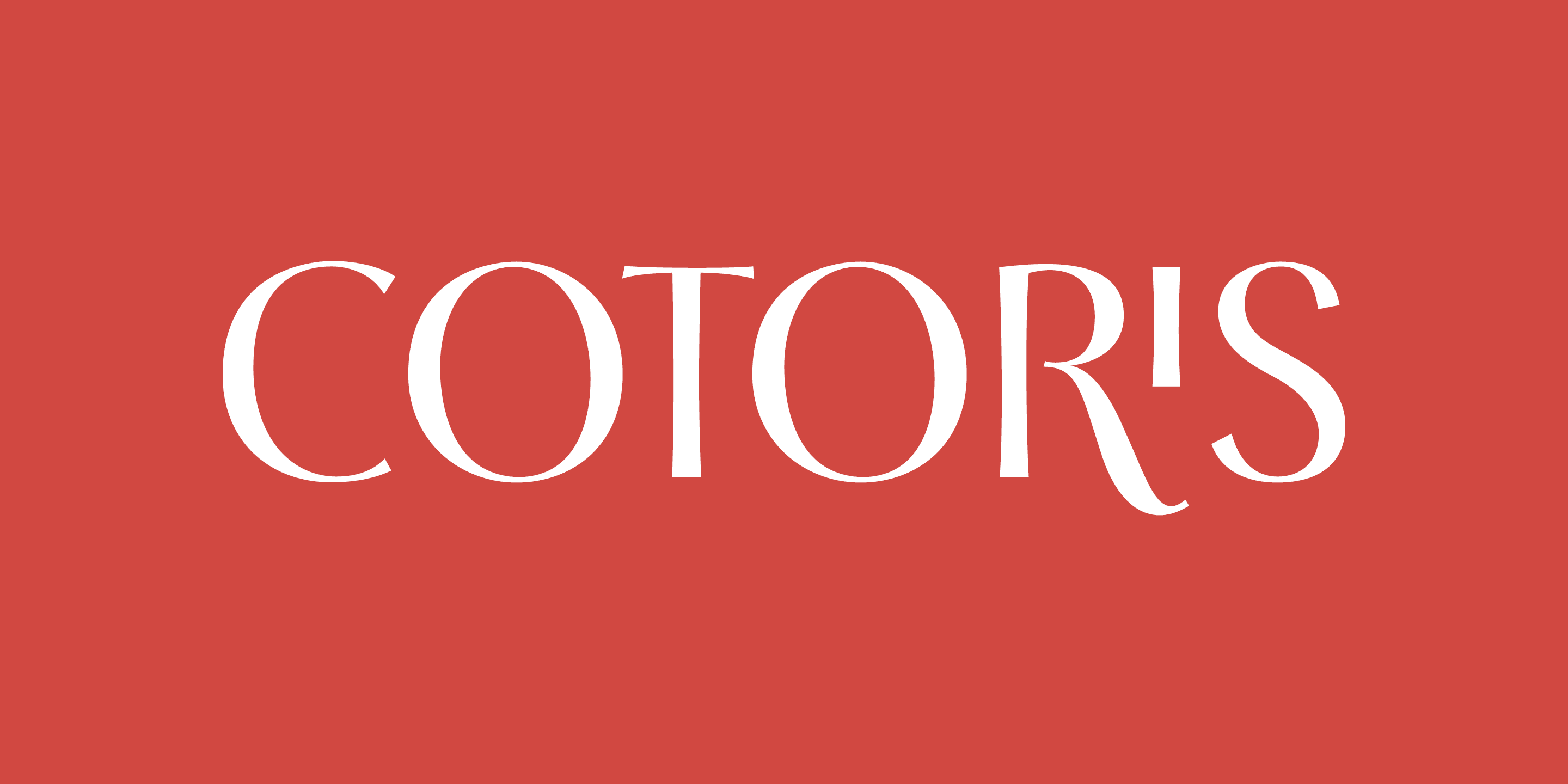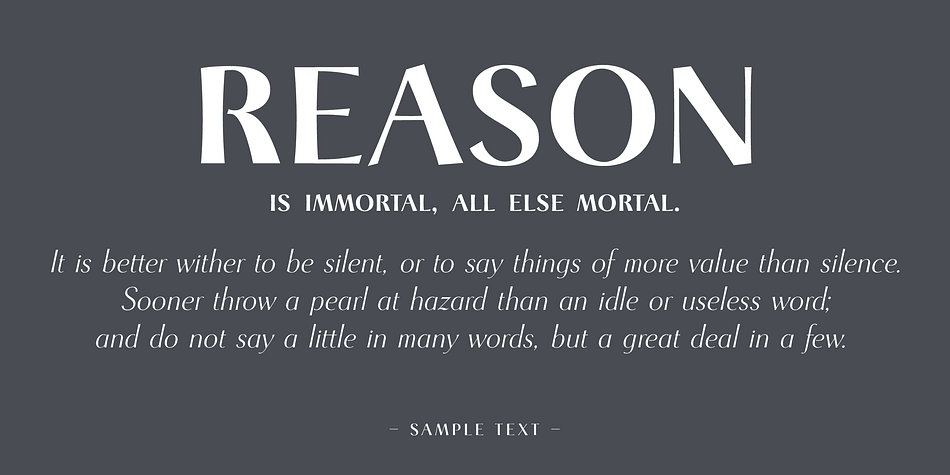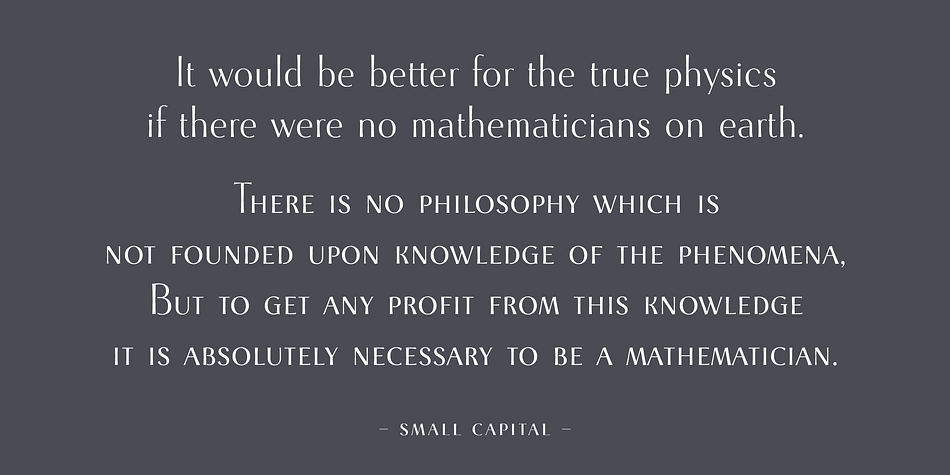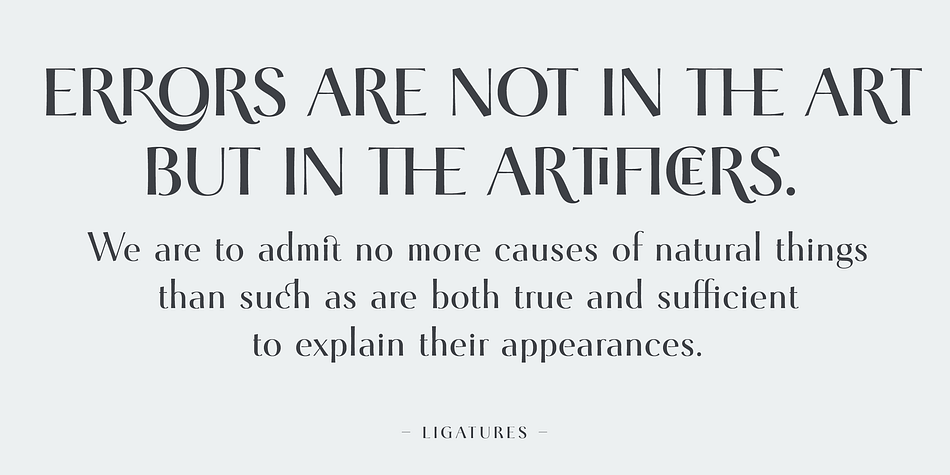
Cotoris is a sans serif font family. This typeface has four styles and was published by Dharma Type.
Cotoris is beautiful glyphic sans serif. This font include ligatures and small capital for advanced typography. Highly effective where a graceful and feminine design is desired.